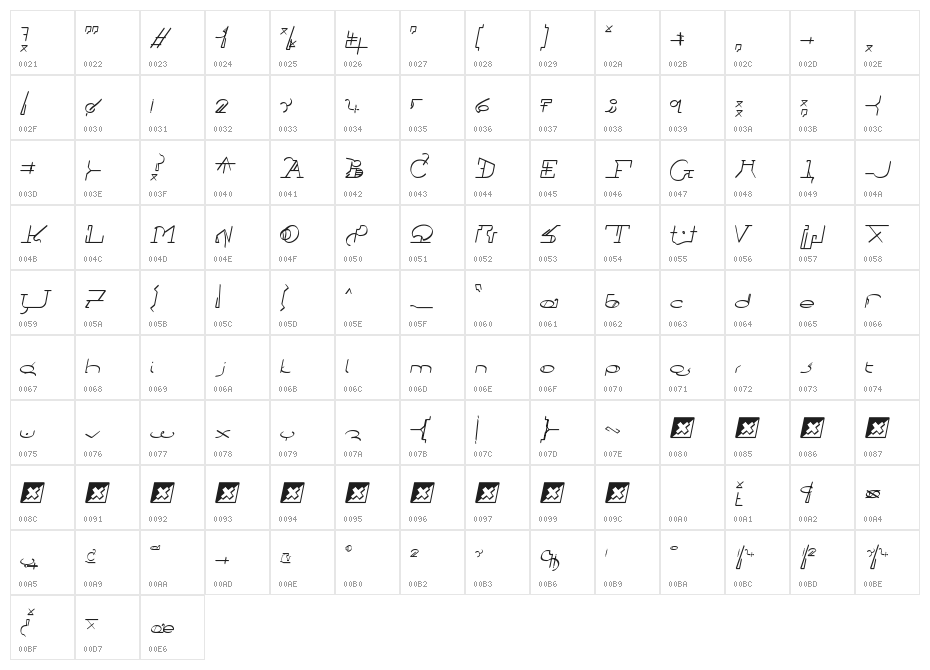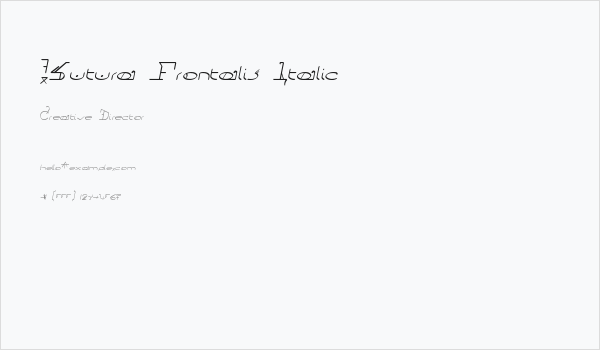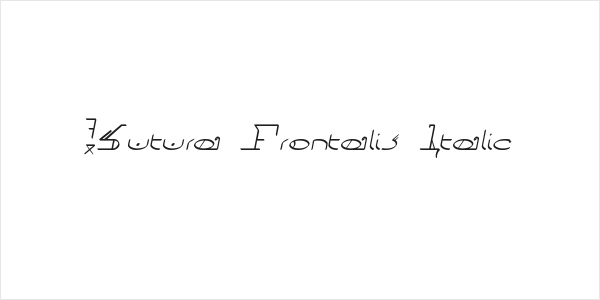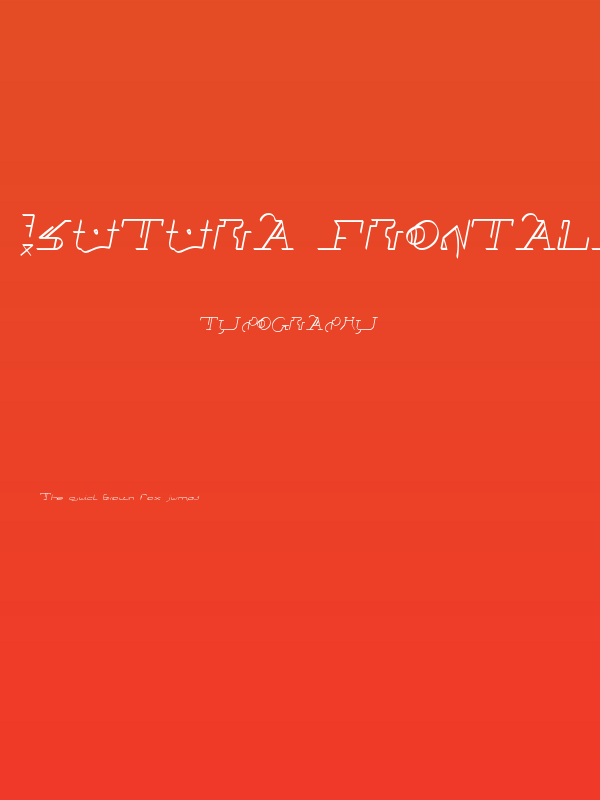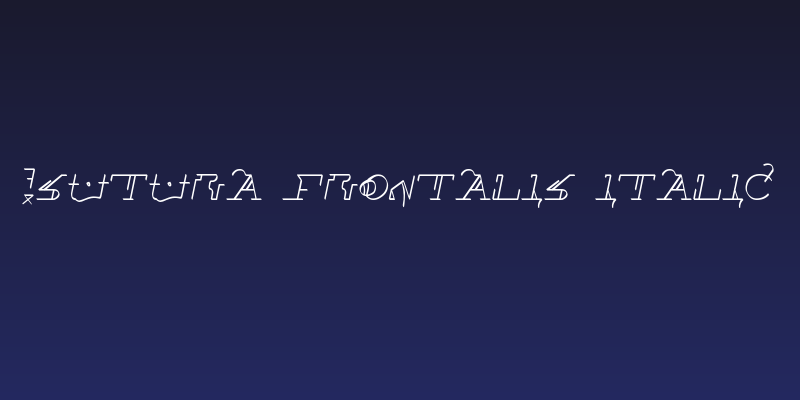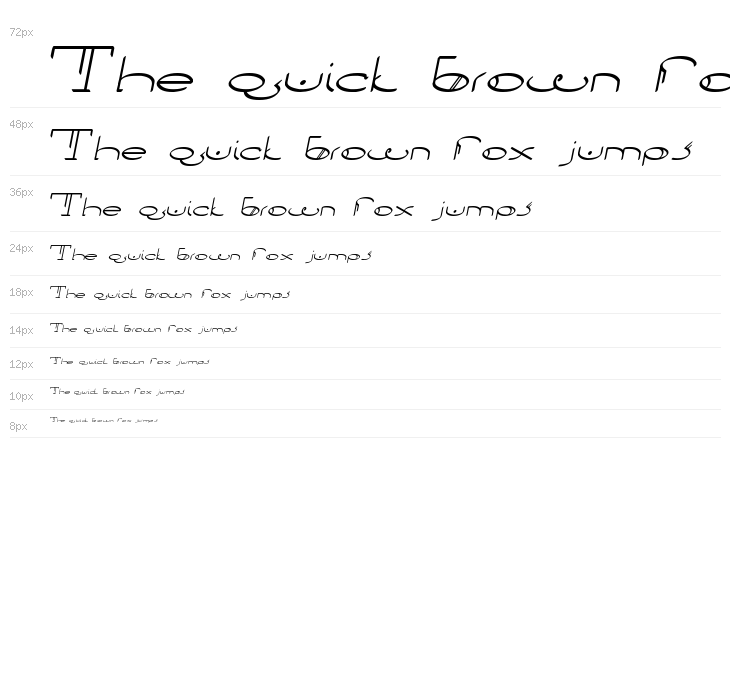
!Sutura Frontalis Italic Font
!Sutura Frontalis Italic Description
This font features a unique and artistic style with a futuristic and abstract appearance. The characters are composed of sharp angles and curves, giving them a dynamic and fluid look. The uppercase letters are particularly distinctive, with each character having its own individual flair. The lowercase letters maintain a consistent style, complementing the uppercase with their smooth and flowing lines. Numbers and special characters follow the same design principles, ensuring a cohesive overall appearance. This font's intricate design makes it stand out, ideal for creative and modern projects.
| Proposed Projects | Ideal for modern branding, sci-fi themed projects, digital art, and innovative product packaging. |